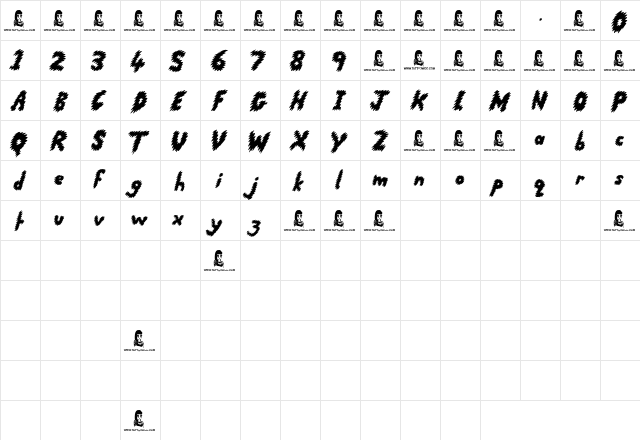
Running Scared Regular
| Foundry | Jonathan S. Harris |
| Designer | Jonathan S. Harris |
Design Context for Running Scared Typeface
Running Scared is a composed and adaptable typeface that performs quietly and consistently across a wide range of design contexts.